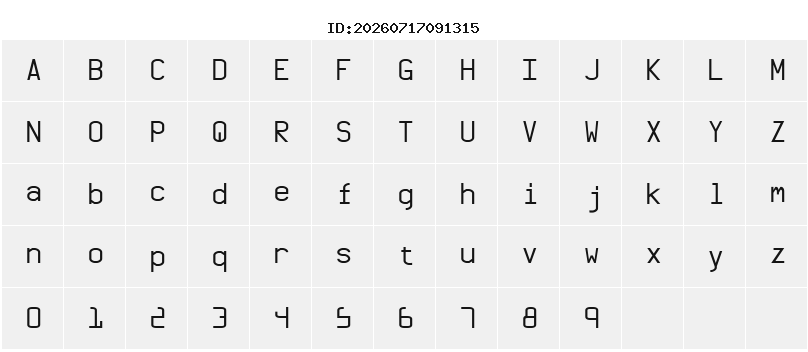
• Font Name: Bowman
• Designer: hector
• Manufacturer: hector
• Description: 2010 Typographic Tribute Project "2001: A Space Odyssey"
Bowman.ttf is a modern, elegant sans-serif font designed for ultimate readability and visual harmony. Perfect for branding, headlines, web design, and print materials.